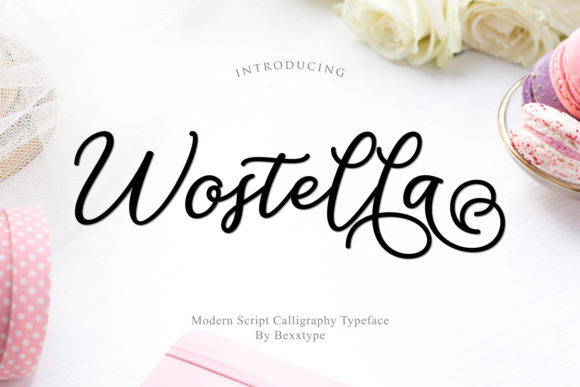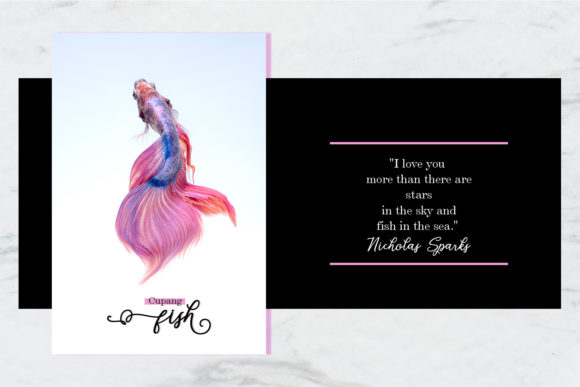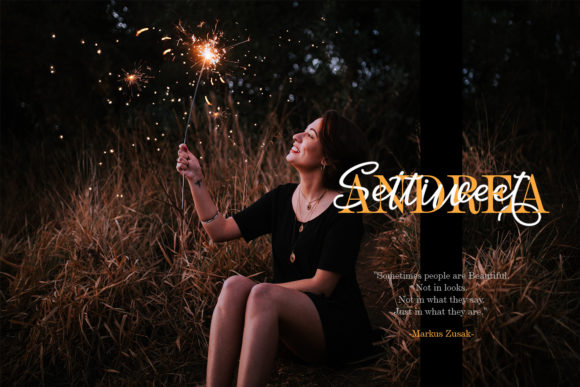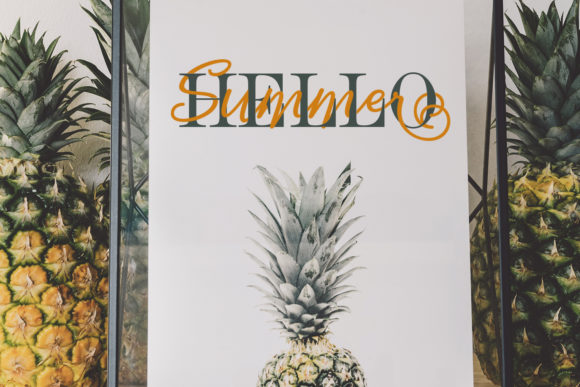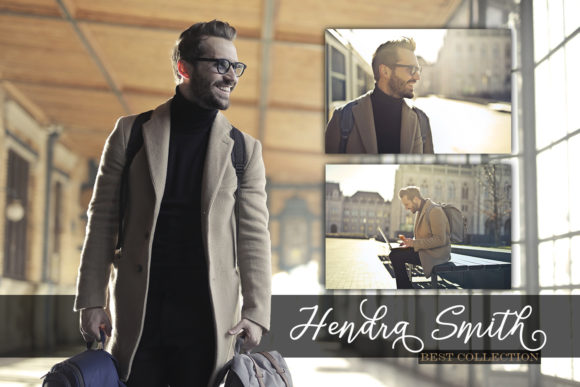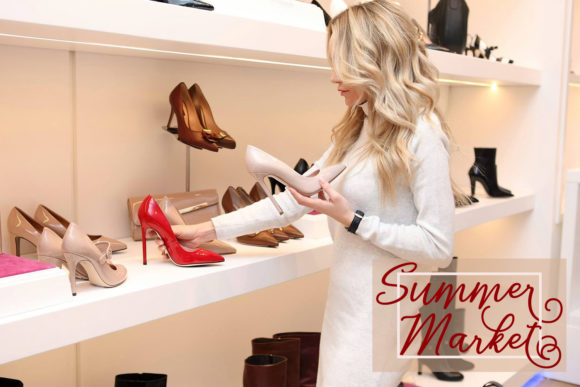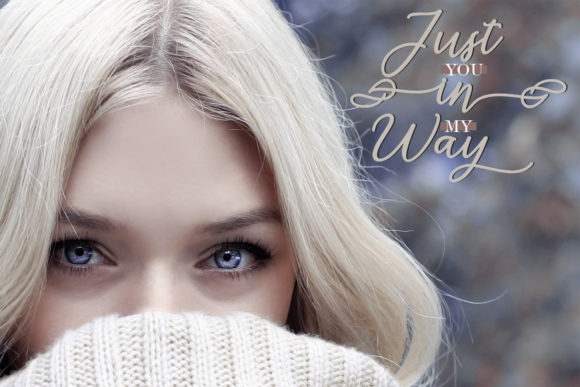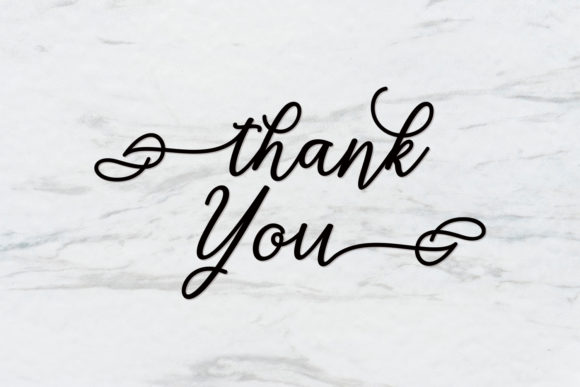
HomeScript FontsWostella Script Font Script Fonts Wostella Script Font FacebookXPinterestWhatsApp Wostella Script Font Poster 2 Wostella Script Font Poster 3 Wostella Script Font Poster 4 Wostella Script Font Poster 5 Wostella Script Font Poster 6 Wostella Script Font Poster 7 Wostella Script Font Poster 8 About Wostella Script Font Wostella is a beautiful and cool handwritten font with an authentic twist. Get inspired by its unique charm! DOWNLOAD ON CREATIVE FABRICAThis font is sold and delivered by Creative Fabrica. Font Canyon may earn a commission if you buy through this link. People also explored Skull Monogram Font Syani White Font Homesick Font Gloucester Script Font Jericho King Font Milkshake Blueberry Font Macadamia Font Grey Font Marjolein Font 300 0 TagsWostella Script Font Previous articleMolita FontNext articleAyalda Font LEAVE A REPLY Cancel reply Comment: Please enter your comment! Name:* Please enter your name here Email:* You have entered an incorrect email address! Please enter your email address here Website: Save my name, email, and website in this browser for the next time I comment. Personal Use Free Baby Cute Personal Use Free Read more about this font Nulshock Bold Personal Use Free Read more about this font Rellista Script Personal Use Free Read more about this font Machine House Personal Use Free Read more about this font BLOG How to Install and Use Fonts on Windows, macOS, and Web Projects How to Install and Use Fonts on Windows, macOS, and Web Projects Fonts are a crucial part of design and branding. Whether you’re designing a... Free Fonts Risk: Why Free Fonts Can Be Dangerous for Designers Best Fonts for T-Shirt Design – Top 2025 Picks Elegant Wedding Invitation Fonts – Handwritten & Script Fonts